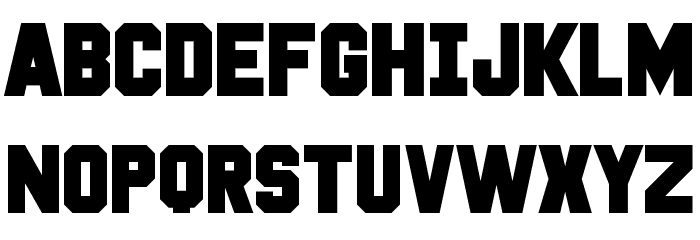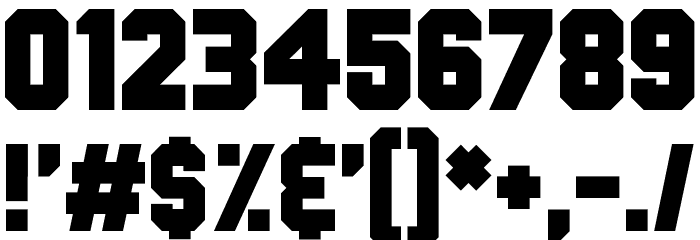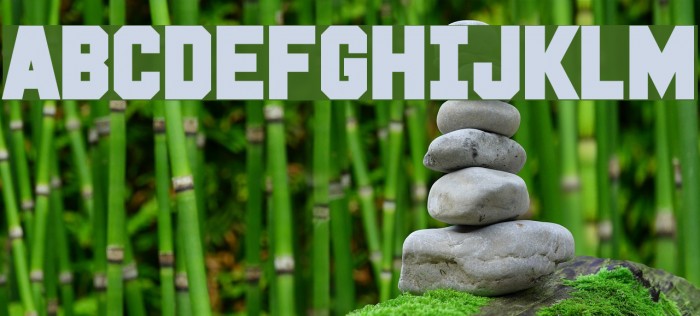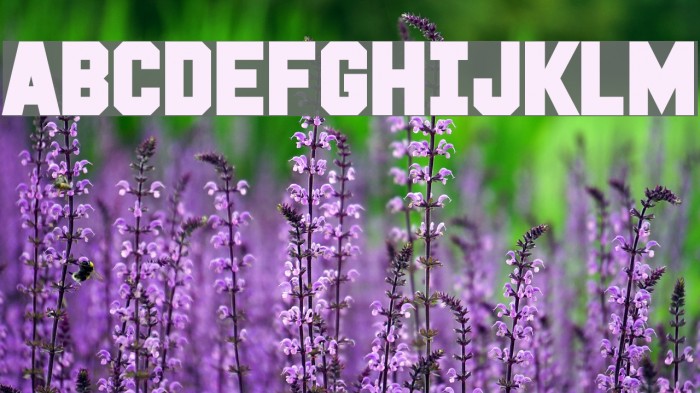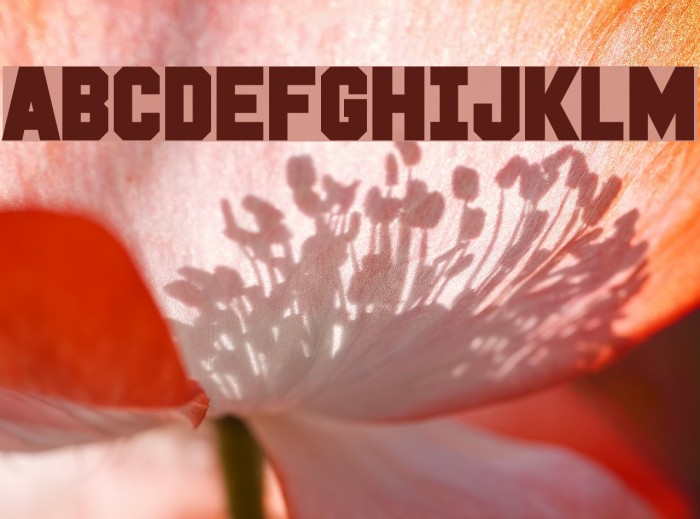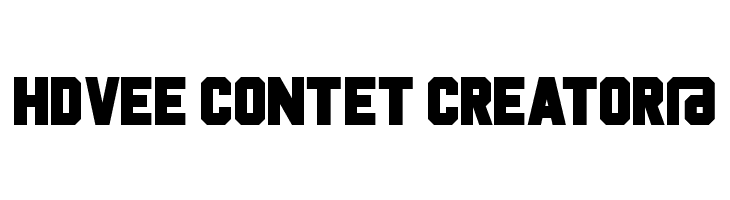
White Flame Font
This font features bold, geometric letterforms with a strong, impactful presence. The characters are constructed with sharp angles and a uniform stroke width, giving them a solid and robust appearance. The uppercase and lowercase letters maintain a consistent style, with the uppercase being slightly more pronounced. The numerals and special characters follow the same design principles, ensuring a cohesive look across all glyphs. This font is ideal for making a statement, with its bold and assertive style that commands attention.
A bold, geometric font with sharp angles and a strong presence.
- Proposed Projects: This font is perfect for branding, posters, headlines, and any project that requires a bold and impactful typeface.